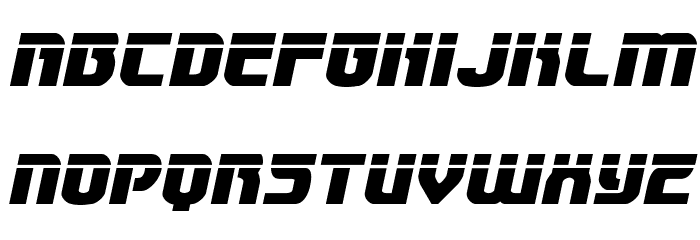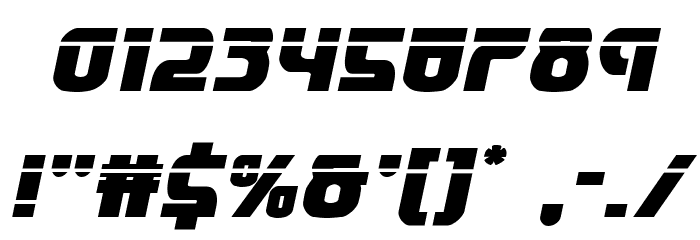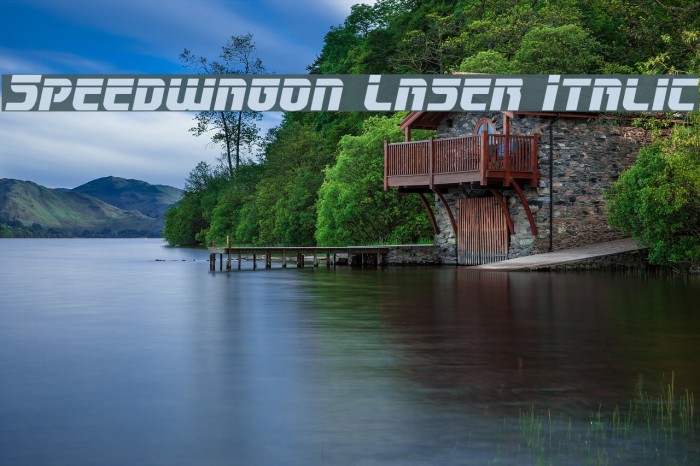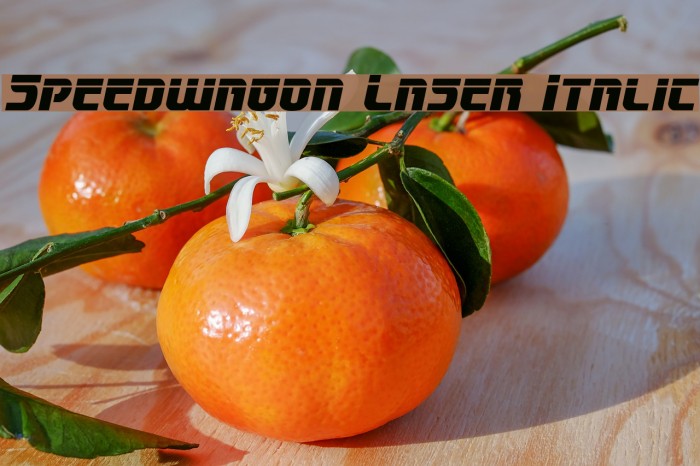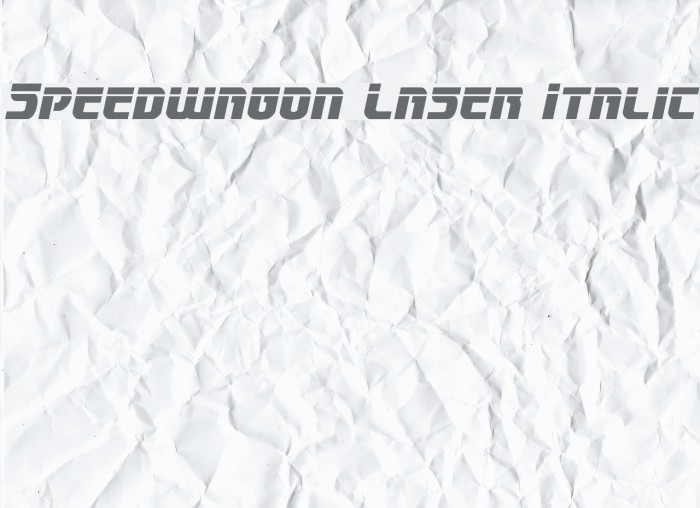
Speedwagon Laser Italic Font
This font features a bold, futuristic design with sharp angles and a distinct italic slant, giving it a dynamic and energetic appearance. The characters are wide and have a strong presence, making them ideal for attention-grabbing headlines or logos. The design incorporates a stencil-like effect with breaks in the strokes, adding to its modern and industrial feel. The numerals and special characters maintain the same bold and angular style, ensuring consistency across all text elements.
A bold, italic, futuristic font with sharp angles and a stencil effect.
- Proposed Projects: Ideal for sci-fi themed projects, technology branding, video game titles, and dynamic posters.
- Width: Expanded